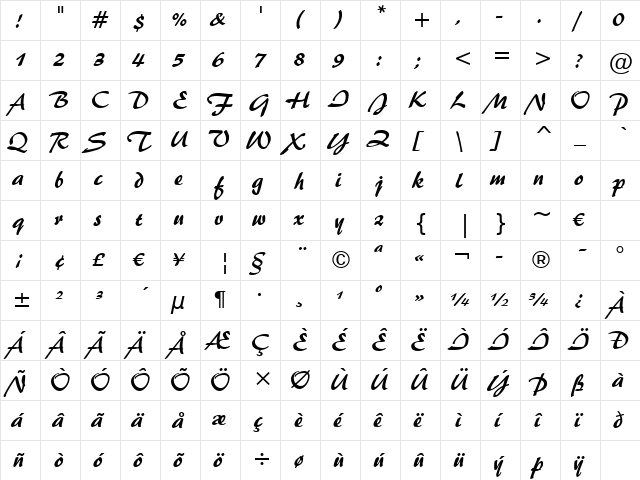
Brush455 BT Regular
Design Context for Brush455 BT Typeface
Brush455 BT flows with the natural rhythm of handwritten lettering, making it ideal for designs that call for warmth and personal expression.
Font Pairing: Combine Brush455 BT with a simple geometric sans for maximum contrast — the tension between flowing curves and clean structure is a classic typographic pairing.
Pro Tip: Pair Brush455 BT with a clean sans-serif for supporting text. The contrast between fluid script and geometric structure creates an elegant typographic hierarchy.